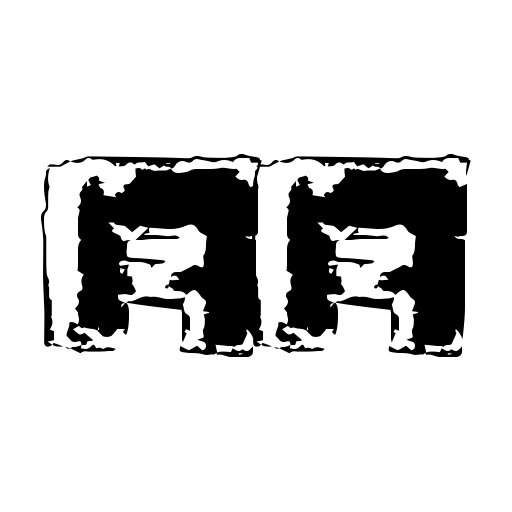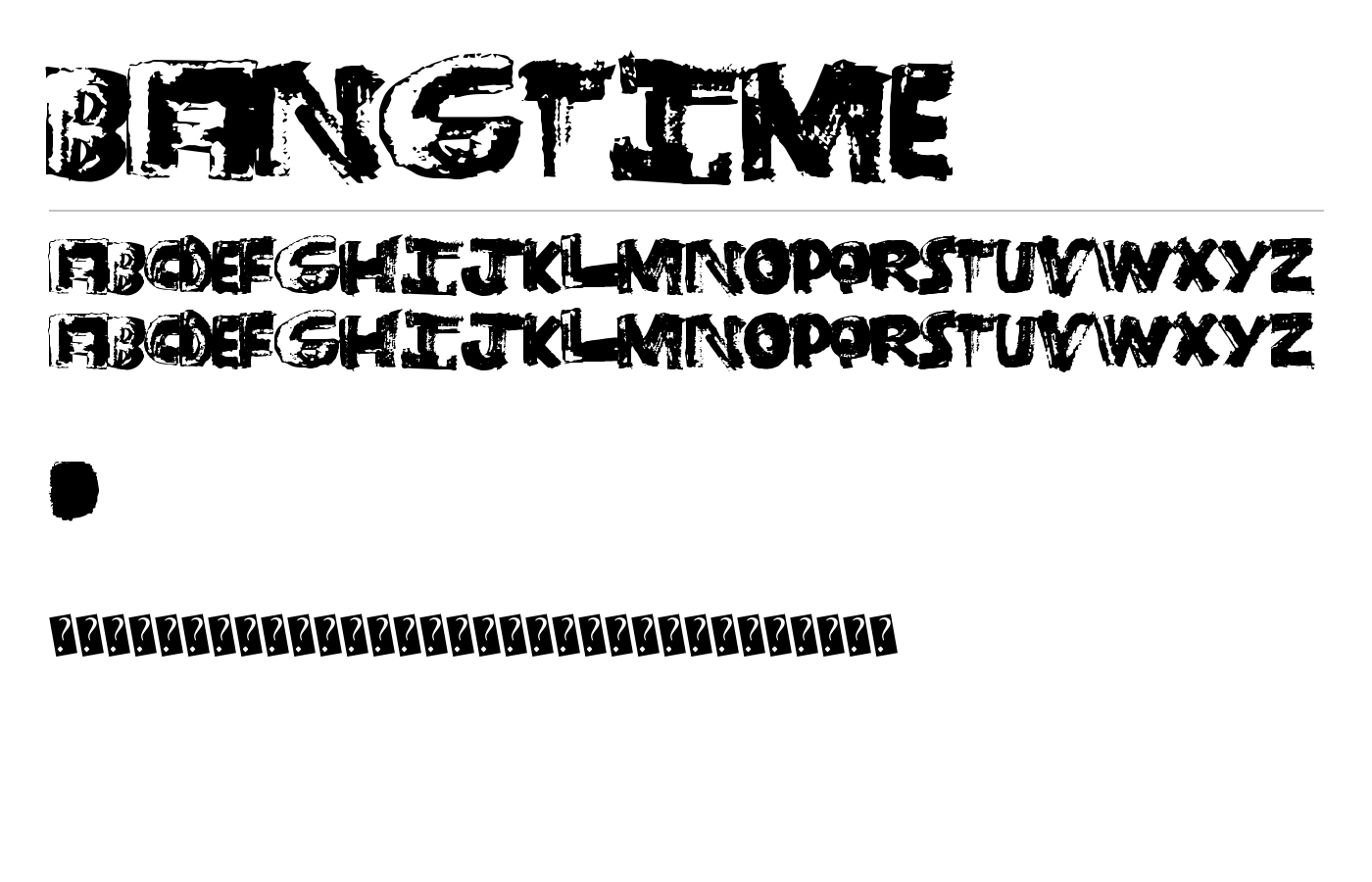
BangTime is a bold, distressed sans serif font with a rough, textured appearance that gives it an edgy, urban vibe. Its uneven, chunky letterforms exude a raw and expressive personality, making it ideal for designs that need a strong, rebellious, or grunge-inspired look. This font works well for headlines, posters, and branding projects that aim to stand out with a bold, artistic impact.
BangTime Font
About BangTime Font
| Font family | BangTime Font |
| Designer | Max Infeld |